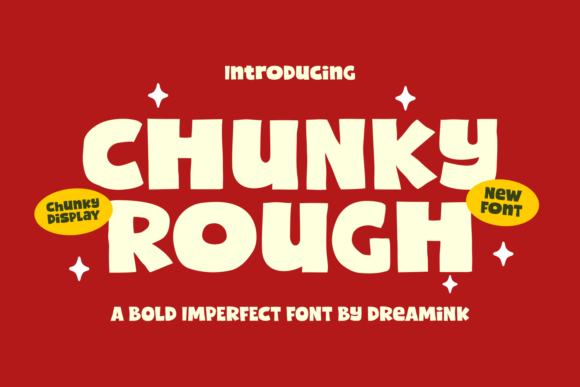
Discover the Bold Charm of Chunky Rough
Finding a typeface that feels both commanding and approachable can transform your next design project. Chunky Rough is a premium display font designed to capture attention with its generously bold letterforms and a distinctively handmade, imperfect charm. This isn't just another heavy font; it's a creative asset built to inject personality and warmth into your work.
A Typeface with Playful, Handmade Character
What sets Chunky Rough apart is its carefully crafted aesthetic. The font features durably thick structures and subtly unfinished edges, giving it a tactile, almost stamped quality. This imperfect charm avoids looking sterile, instead bringing a jovial and authentic radiance to designs. Despite its bold weight, it remains highly legible, expertly marrying readability with a unique creative integrity. The result is a typeface that feels modern, friendly, and full of wit, making it an excellent choice for projects that need to stand out without feeling aggressive.
Practical Applications for Creative Projects
The versatility of this modern typography asset makes it suitable for a wide range of ventures. Its bold, inviting aura is perfect for creating strong visual hierarchies. Consider using Chunky Rough for:
- Logo Design & Brand Identity: Craft memorable logos and cohesive brand assets that feel approachable yet professional.
- Poster & Headline Use: Ensure your main message is impossible to miss on posters, flyers, and event promotions.
- Packaging Design: Give product labels and boxes a fun, eye-catching personality that stands out on shelves.
- Social Media Graphics: Create scroll-stopping posts, stories, and advertisements with a consistent, engaging voice.
- Merchandise & Cricut Projects: Design appealing T-shirt art, stickers, and other print-on-demand products.
- Children-Oriented Designs: Its friendly and unthreatening style is ideal for books, educational materials, and kids' branding.
Tips for Effective Font Pairing and Use
To get the most out of Chunky Rough, consider how it interacts with other design elements. As a bold display font, it pairs beautifully with simpler sans serif or serif fonts for body text, ensuring your layout remains balanced and easy to read. Use it for headlines, titles, or key phrases where you want maximum impact. Its inherent scalability means it works well at large sizes for posters and signage, as well as at smaller sizes for social media graphics where clarity is still paramount. Always check the licensing for commercial font download to ensure it covers your intended use, whether for client work or personal projects.
Elevating Your Design Toolkit
Incorporating a well-designed typeface like Chunky Rough into your library is an investment in your creative output. Typography choices directly influence brand perception; a font with this much character can help a brand feel more energetic, trustworthy, and memorable. It offers a practical solution for designers seeking a creative font that doesn't sacrifice professionalism for personality. Whether you're working on corporate design work with a twist, whimsical editorial layouts, or vibrant digital products, this typeface provides the spark and wit needed to elevate your work.